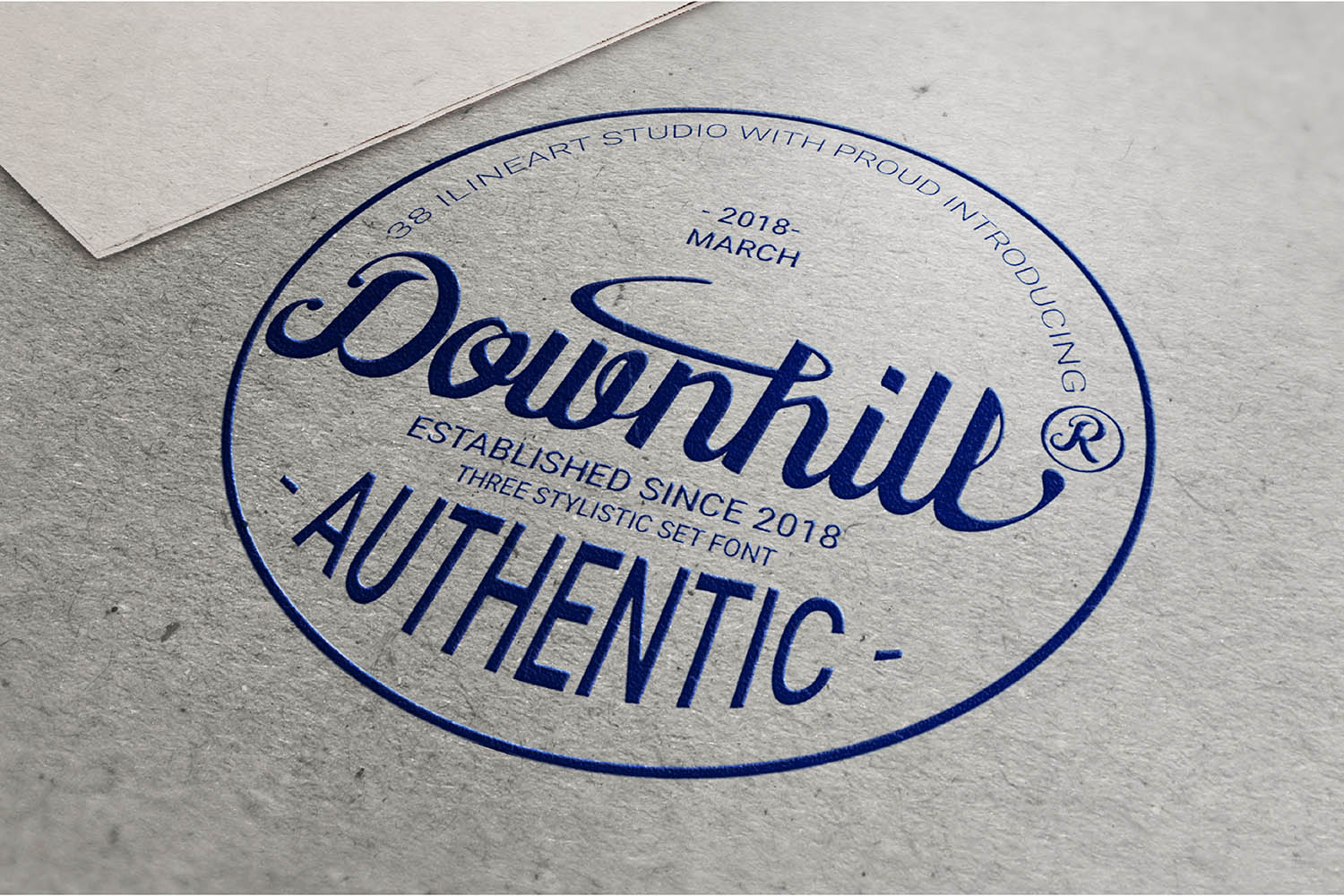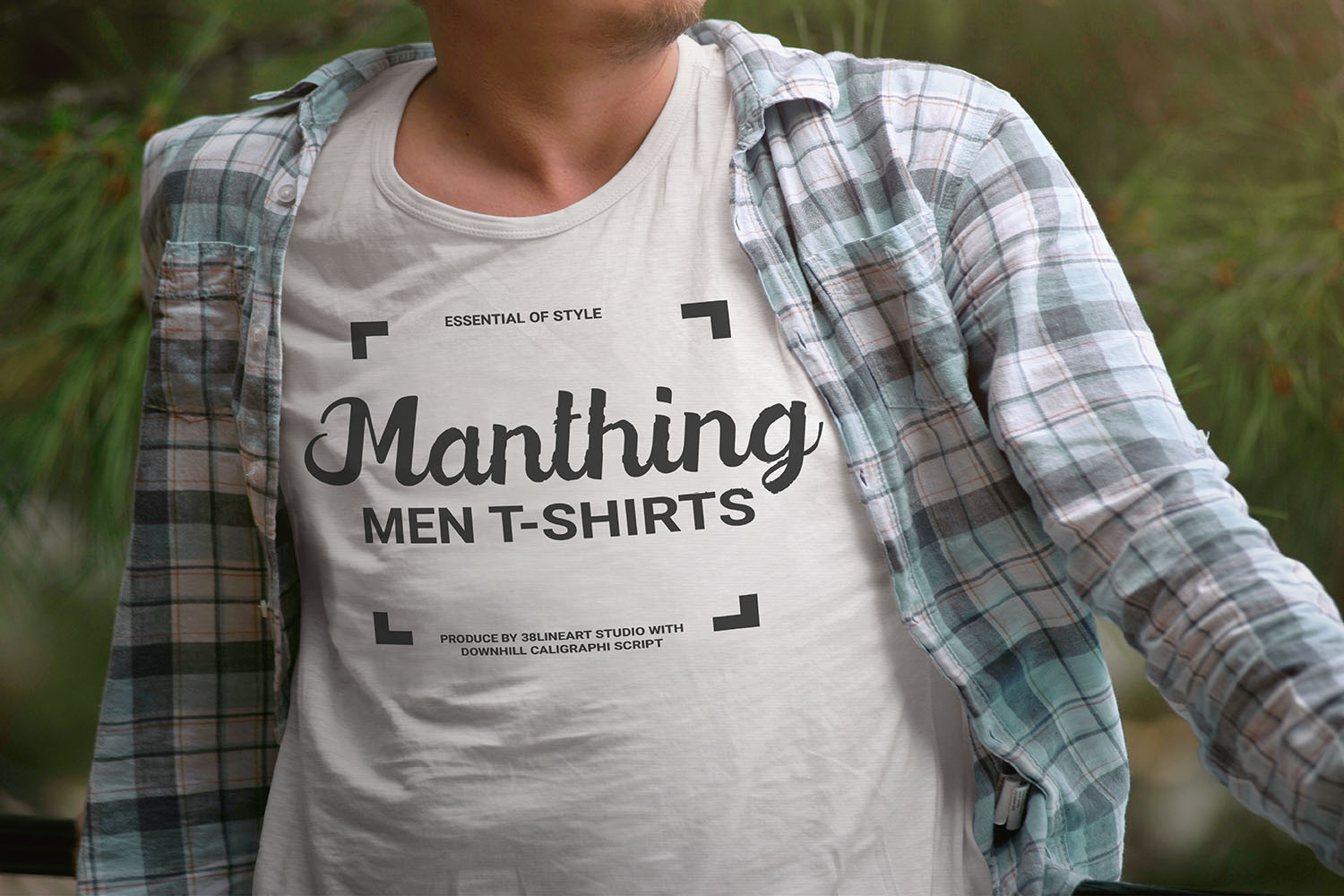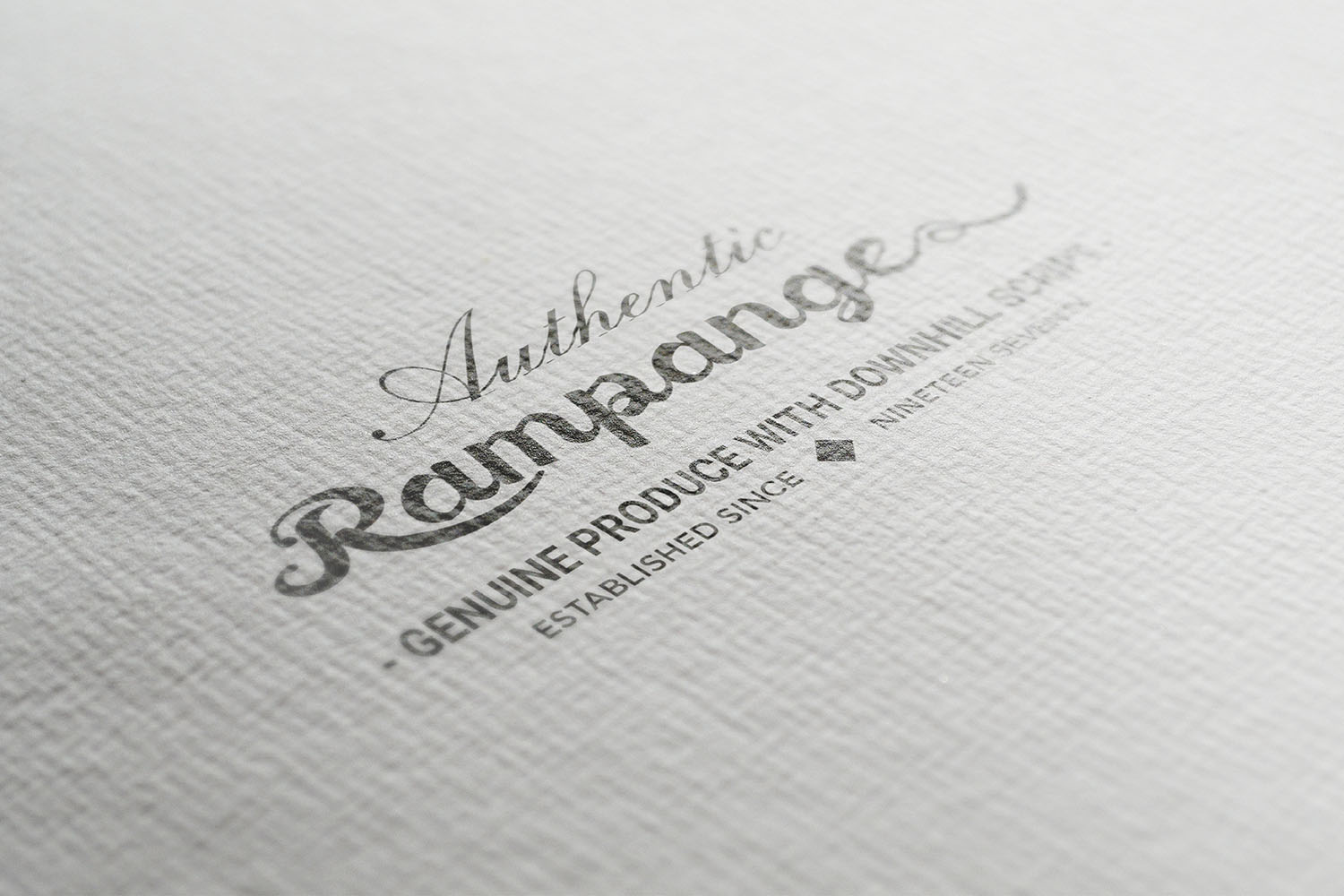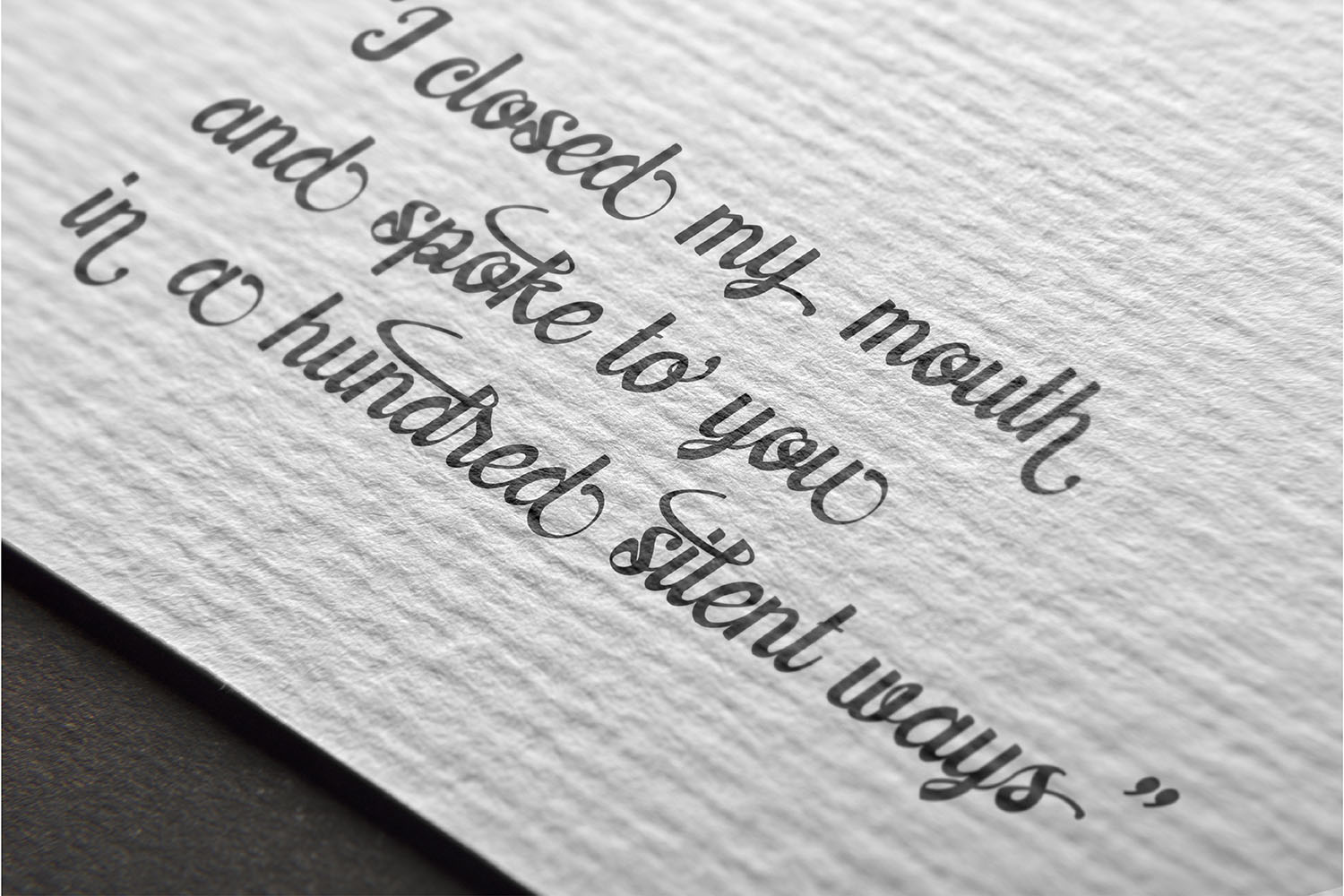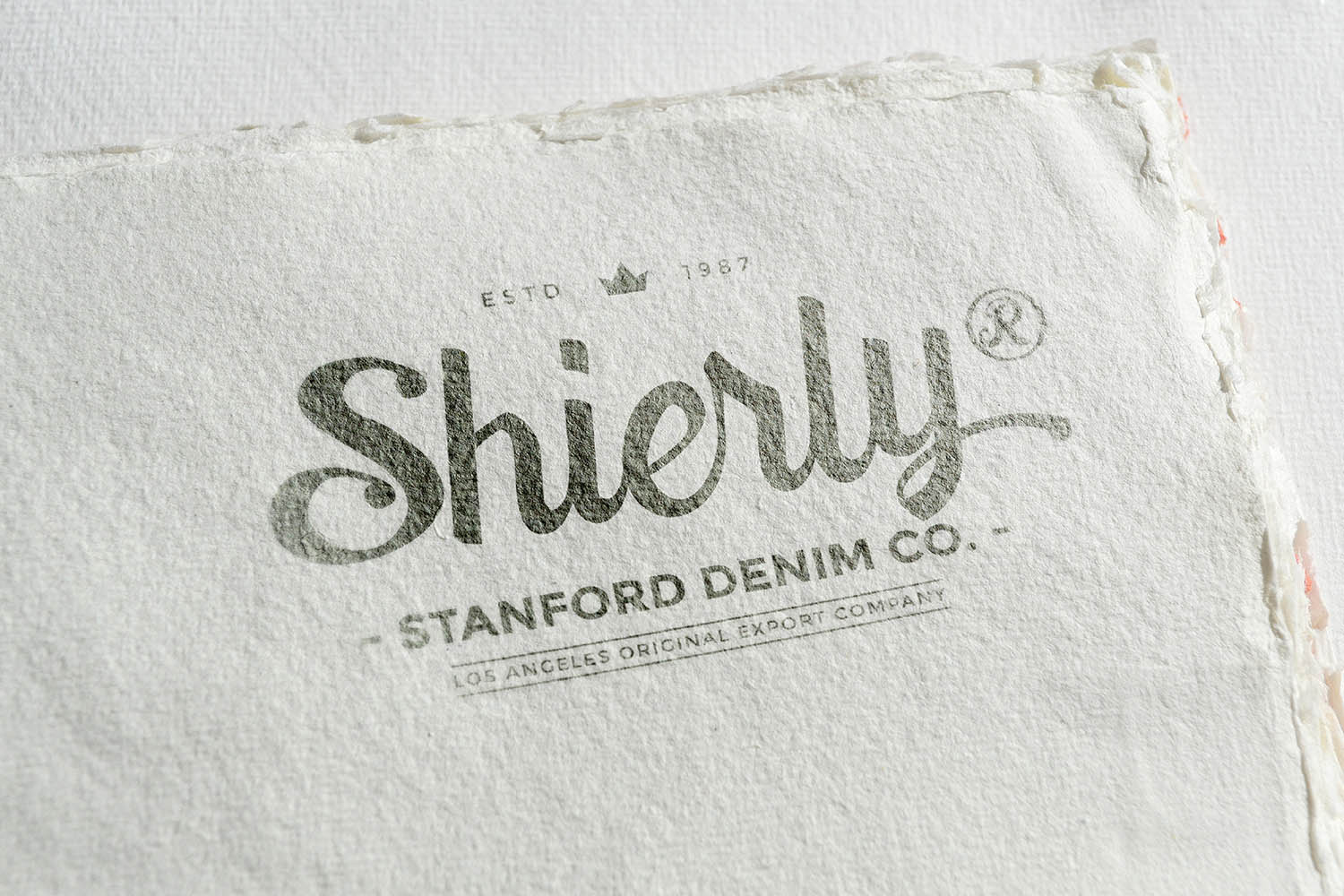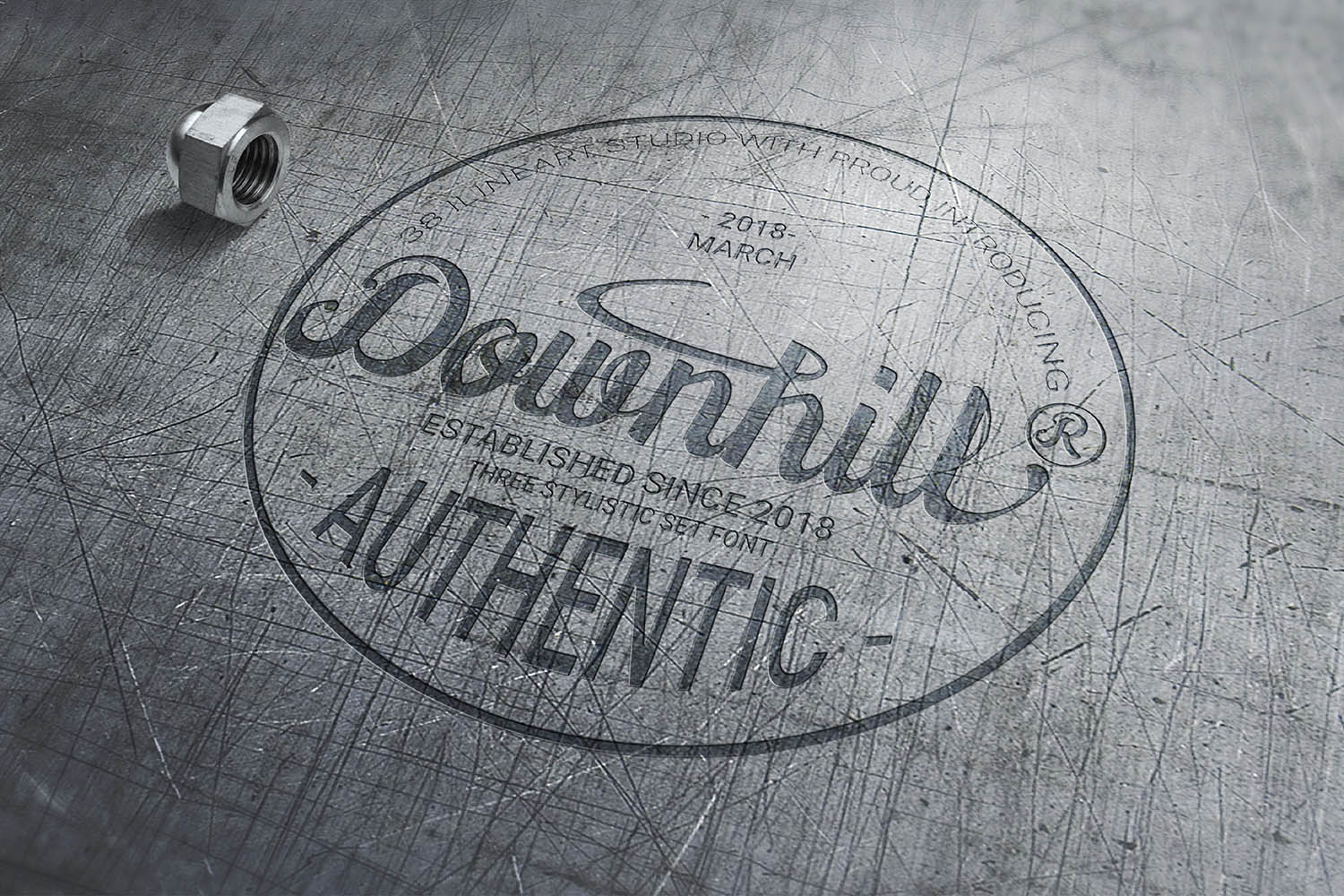
Introducing Downhill Font: Elevate Your Designs with Stunning Painterly Calligraphy
In the world of typography, a font can make or break a design. For designers and crafters looking for that perfect blend of modernity and elegance, Downhill Font is a game-changer. This stunning painterly calligraphy font is crisp, modern, and specifically designed to make your displays and headlines pop. With its highly brandable appeal, Downhill Font is not just a typeface; it’s a statement piece that can elevate your logotypes and merchandise to new heights.
The Essence of Downhill Font
Downhill Font is a masterpiece of modern calligraphy, bringing a fresh and dynamic feel to the world of typography. Its painterly strokes and fluid lines give it a unique, handcrafted look that’s both sophisticated and approachable. This font is the perfect choice for designers who want to add a touch of elegance and personality to their projects without sacrificing readability.
Key Features of Downhill Font
- Modern and Crisp Design: Downhill Font boasts a contemporary design that’s crisp and clean, making it perfect for digital displays and print materials.
- Painterly Calligraphy: The font’s painterly strokes give it a unique, artistic feel that’s sure to capture attention.
- Highly Brandable: With its distinctive look and feel, Downhill Font can help you create a strong brand identity that stands out from the crowd.
- Versatile: Whether you’re designing a logotype, merchandise, or promotional materials, Downhill Font is versatile enough to shine in any context.
Uses of Downhill Font
The possibilities are endless with Downhill Font. Here are some ideas to get you started:
- Logotypes: Create a memorable brand logo that makes a lasting impression with Downhill Font’s unique and stylish letters.
- Merchandise: From t-shirts to tote bags, Downhill Font can add a touch of sophistication and charm to your merchandise designs.
- Displays and Headlines: Make your headlines stand out with Downhill Font’s bold and eye-catching design.
- Social Media Graphics: Elevate your social media presence with stunning graphics that showcase Downhill Font’s modern and elegant style.
Why Choose Downhill Font?
In a sea of fonts, Downhill Font stands out for its unique blend of modernity, elegance, and brandability. Here are a few reasons why designers and crafters are falling in love with Downhill Font:
- Unique Style: Downhill Font offers a fresh take on traditional calligraphy, making it a great choice for designers looking for something new and exciting.
- Ease of Use: With its clean lines and clear letterforms, Downhill Font is easy to read and works well in a variety of contexts.
- Customization: Downhill Font can be easily customized to fit your brand’s unique needs, making it a versatile choice for any project.
Downhill Font is more than just a typeface; it’s a design statement. With its stunning painterly calligraphy, modern design, and highly brandable appeal, it’s the perfect choice for designers and crafters looking to elevate their projects. Whether you’re creating logotypes, merchandise, or displays, Downhill Font is sure to make a lasting impression. So why wait? Discover the possibilities with Downhill Font and take your designs to new heights.